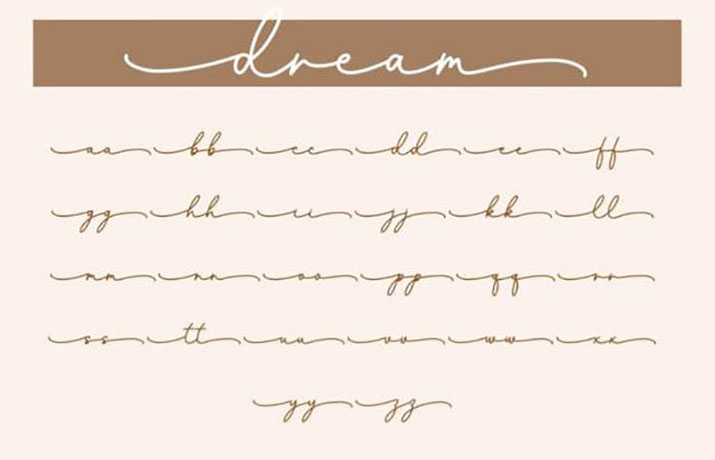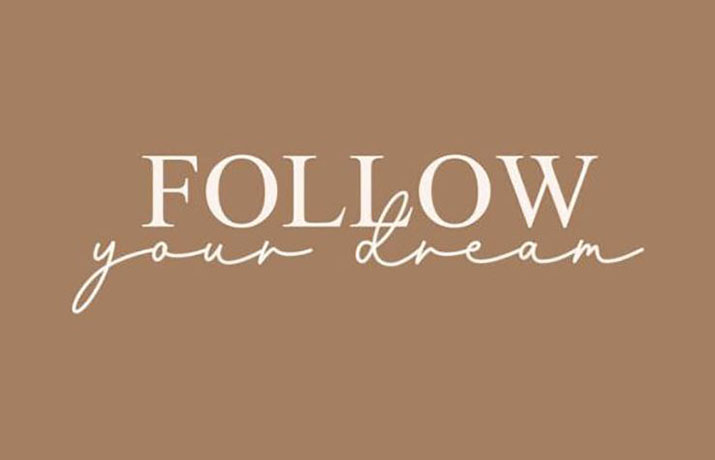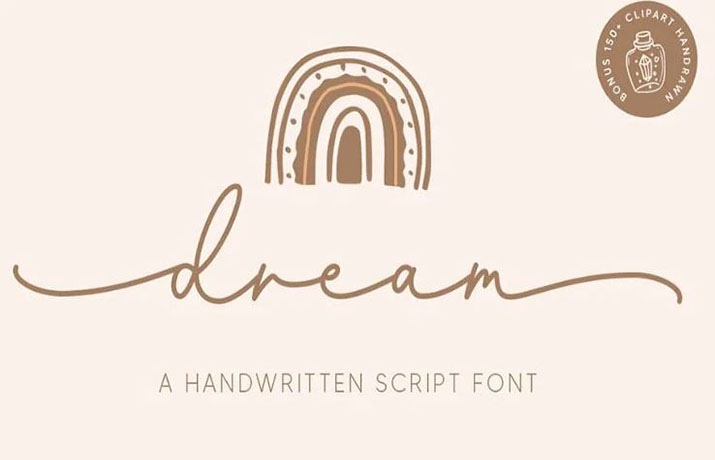
Dream Font is a script handwritten typeface that has a flowing and cursive style. It was designed and published by Graphix Line Studio.
Each letter is created in an italic style, and an extra swash is added to the beginning of each letter. Moreover, the designer also adds a connected flowing style to each letter which adds extra creativity to it.
So, it has a unique modern texture which surely creates fine designs. Try it out for special quotes, taglines, signatures, shopping bags, branding, logos, printing on cards, product designs, and more.
| Style: | Script, Handwritten, Typeface |
- Its ultra-cool texture makes it suitable for a wide range of remarkable applications, including book covers, distinctive quotes, gaming graphics, book covers, elegant cards, and product designs and packaging.
- Also, try it out for books, greeting/wedding cards, signs, banners, invitations, birthday cards, headers, letterhead, signage, labels, news, posters, and more.